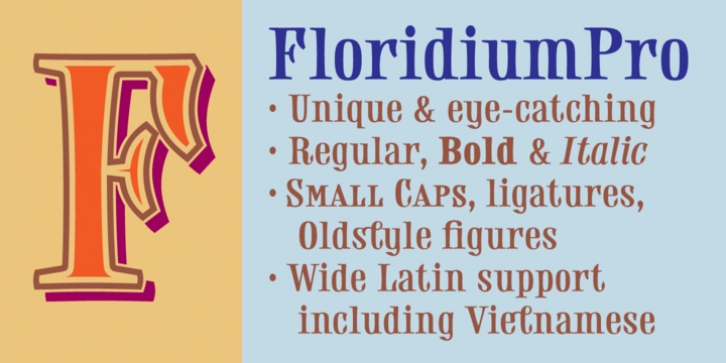
Floridium grew out of an affection for the old wood types of the 1800s. Painters Roman* was the initial inspiration. It was the source for the ‘banana’ and ‘snake head’ serifs. But the design—released by Adobe as Juniper—was too quirky to be useful. I tried to make it more sophisticated and modern while keeping the original personality of the 19th century types. The name resulted from a trip to Miami while the initial drawings were being made. Not the best way to name a typeface, but while we were in Miami Beach there was this tall blonde in a bright yellow bikini sitting on this bright yellow Porsche and...